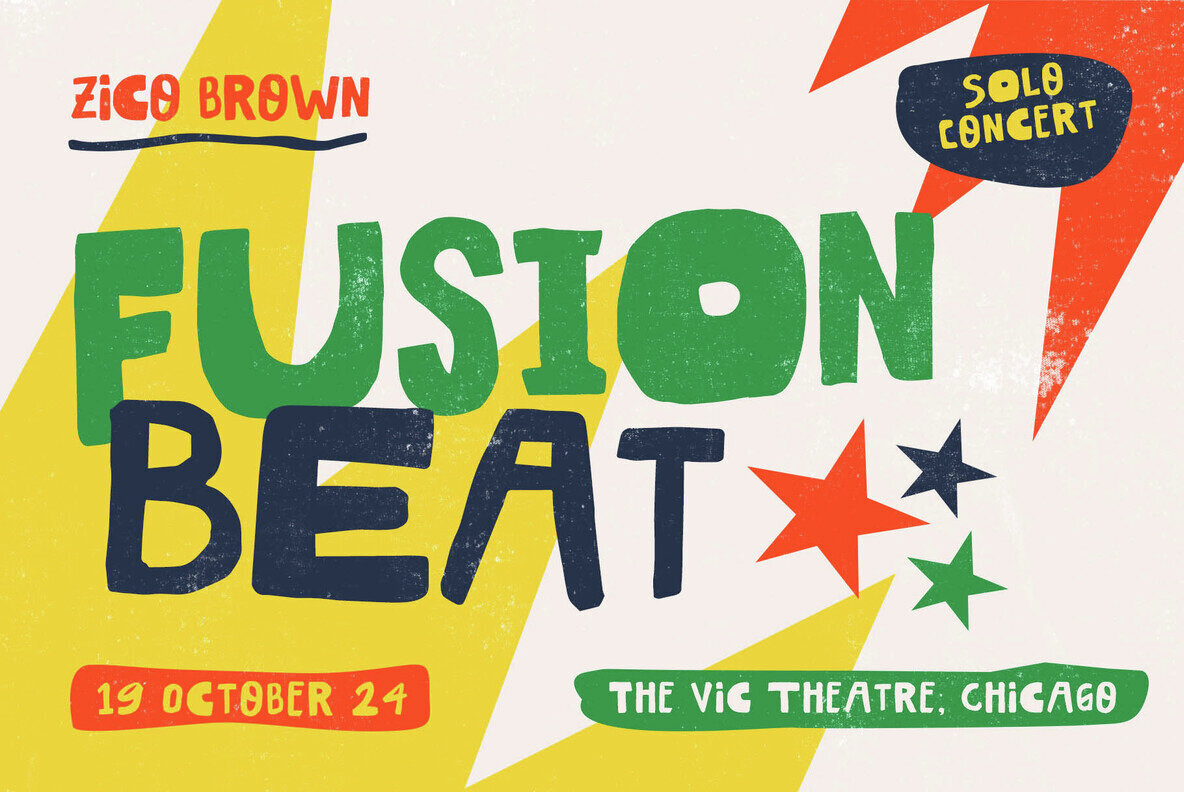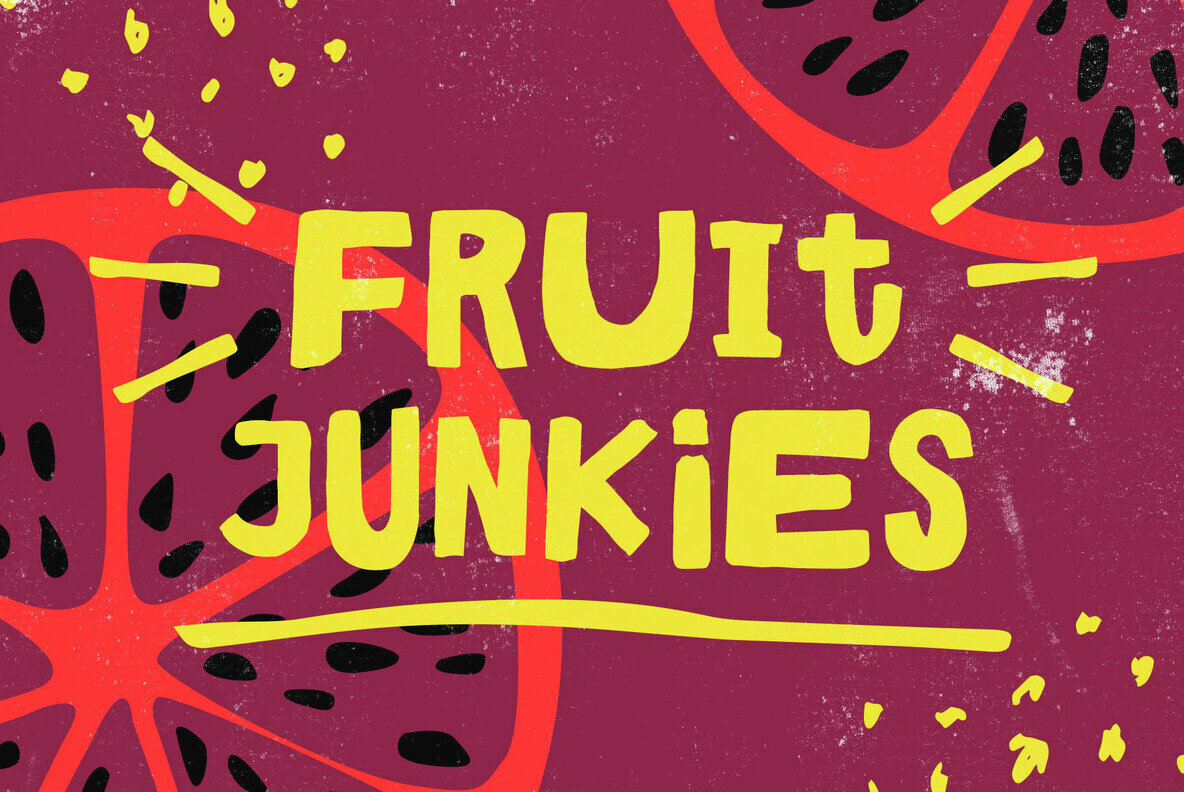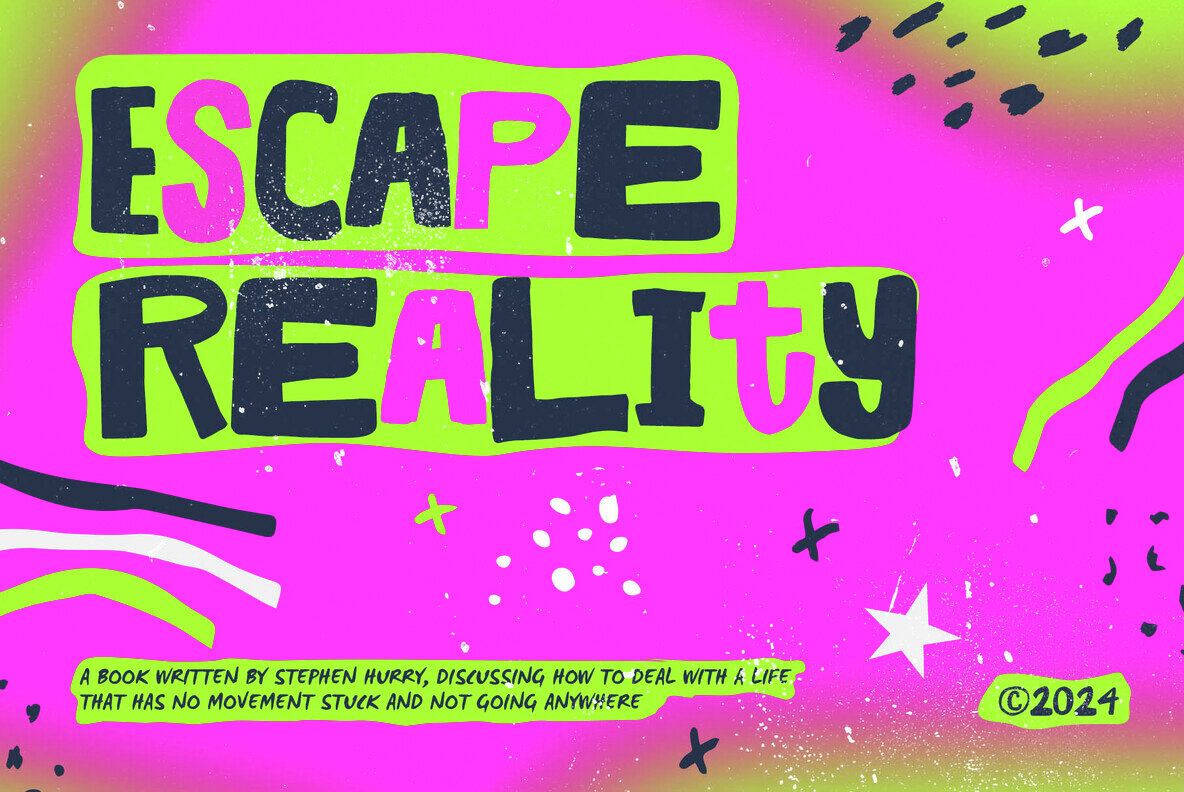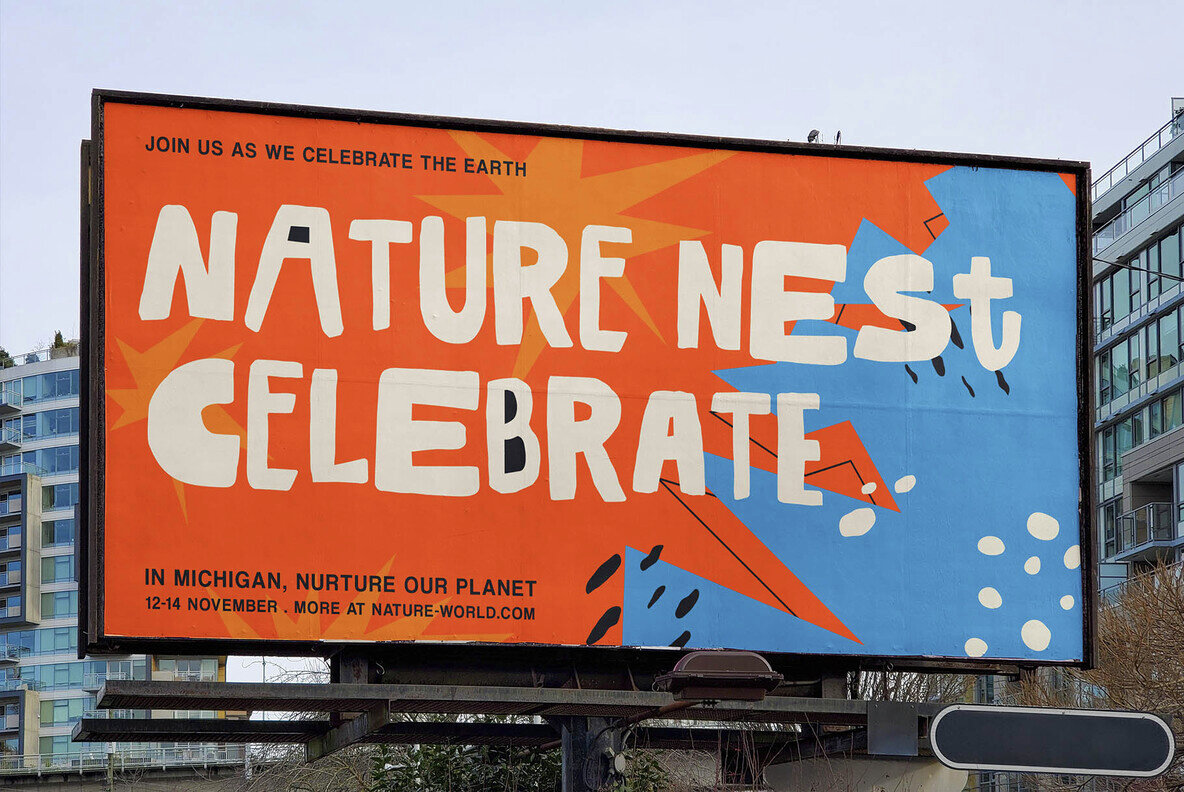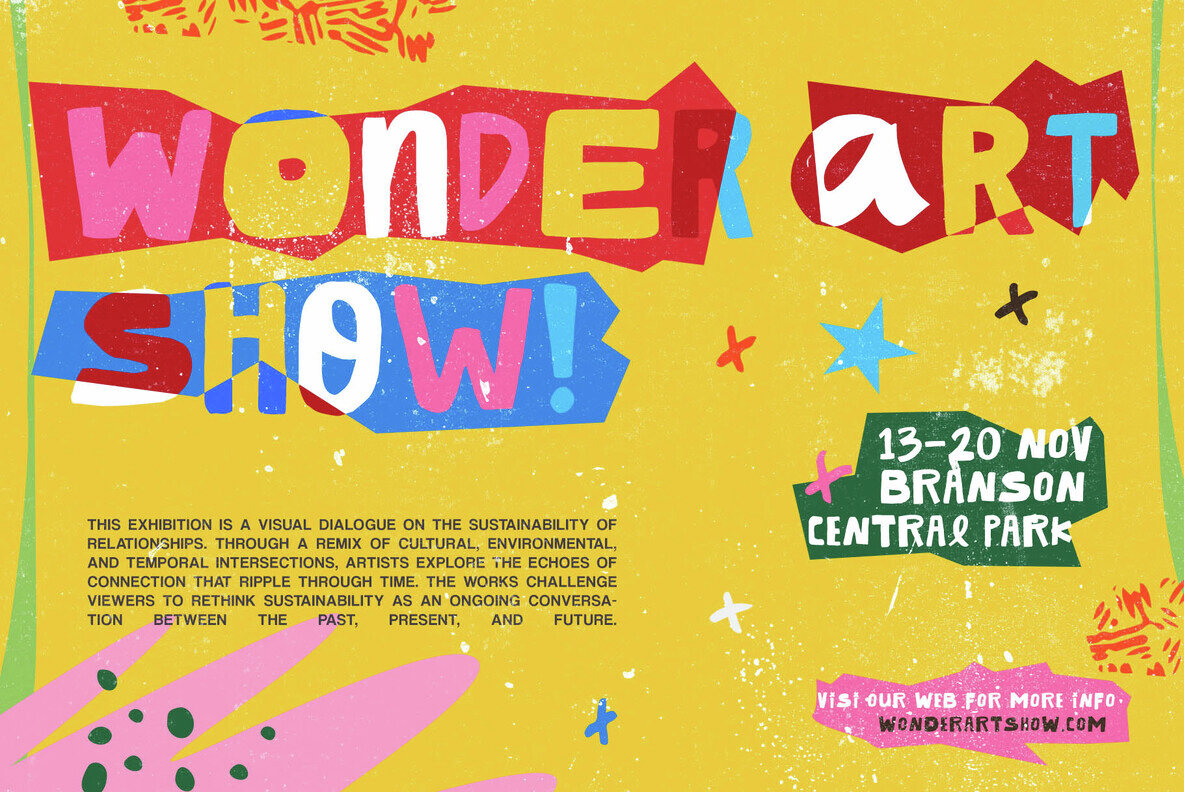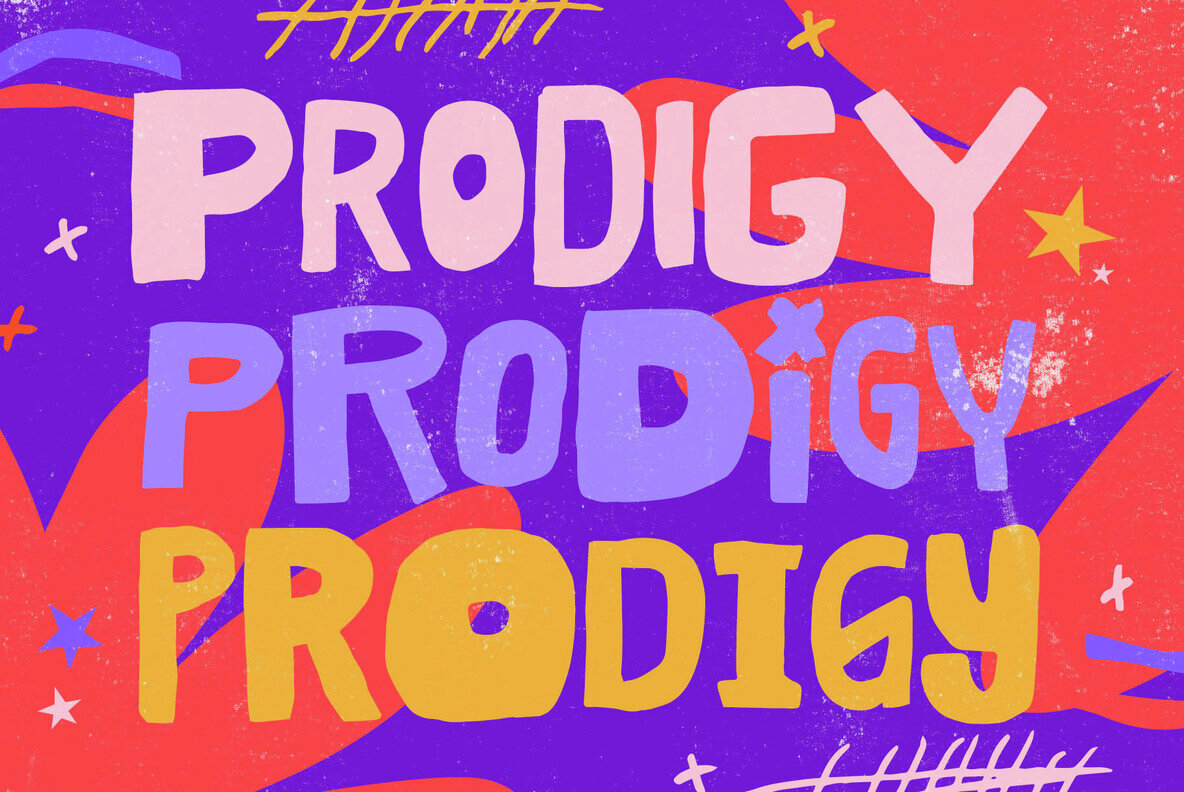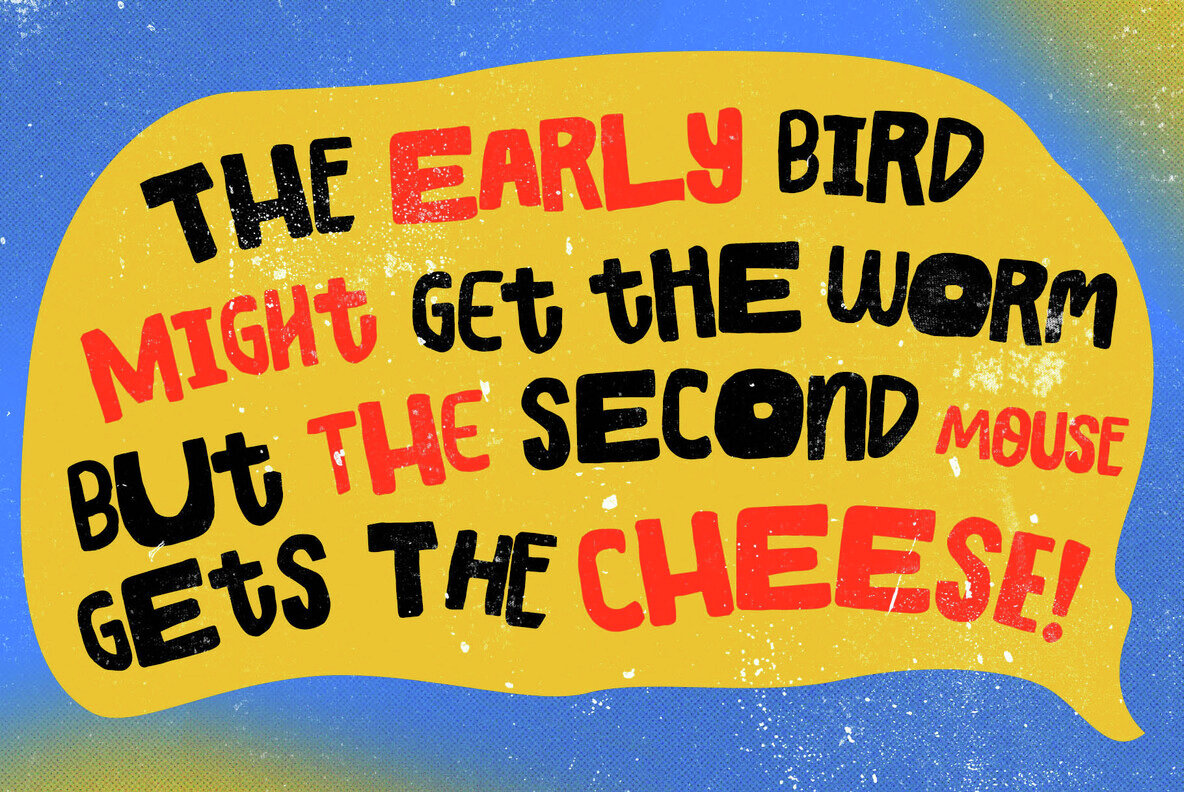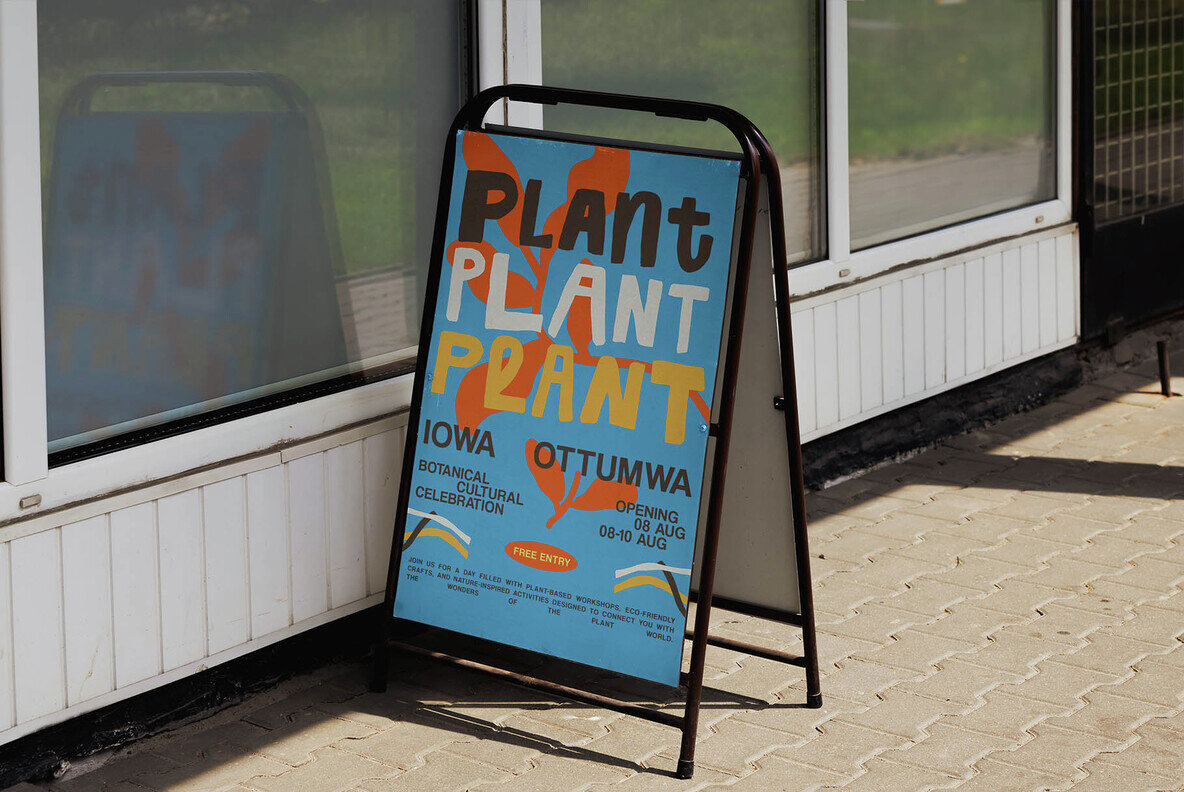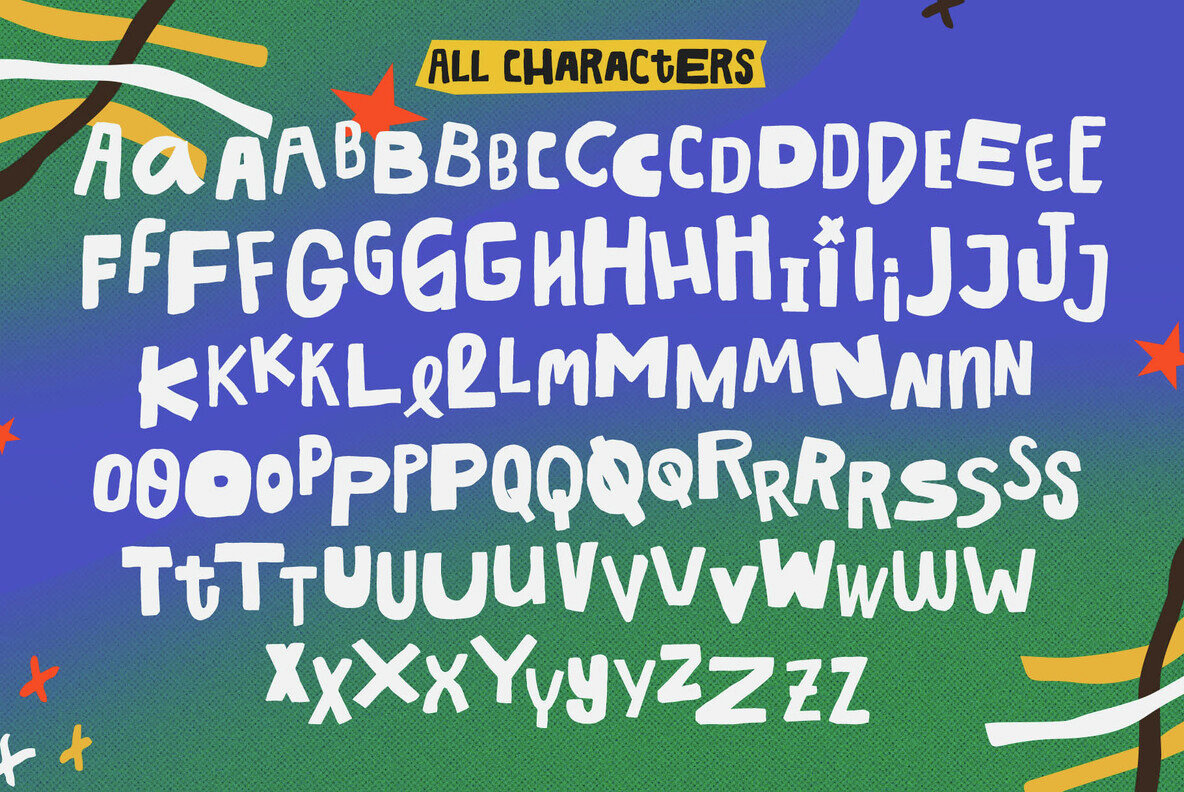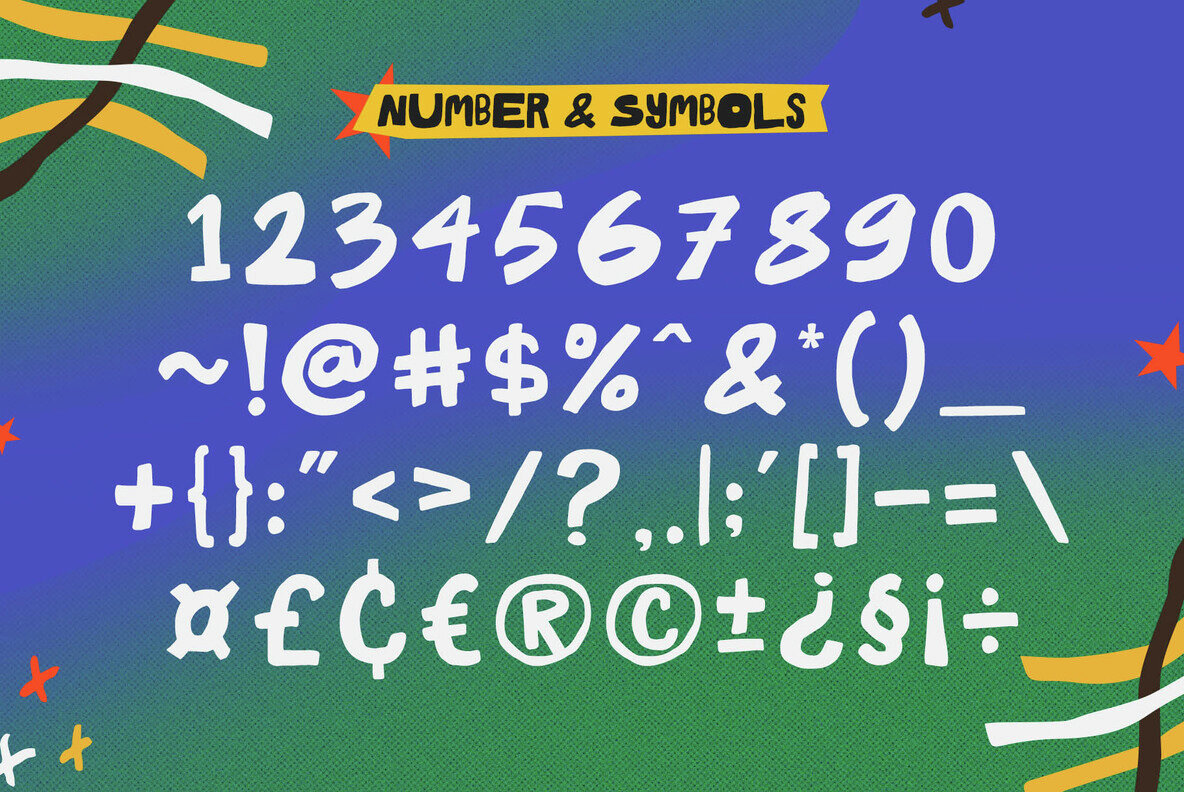
Slackers Font
AT Slackers Regular
Slackers is handmade vintage sans fonts. Inspired by classic western culture, custom culture motorcycle and combining with vintage touch. This font would be perfect to combine in your design, especially on vintage design, poster and many more. This fonts comes with so many alternate to mix and match with your style. This font also comes with opentype and truetype features also webfont format and multilingual support.